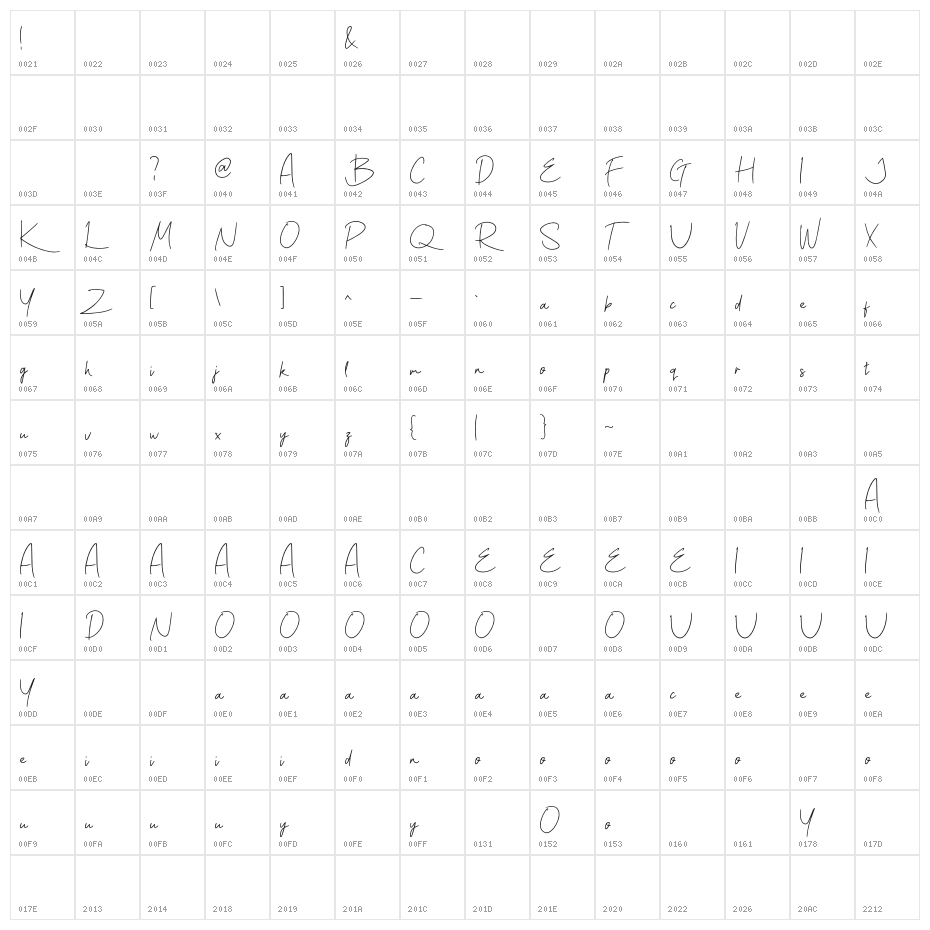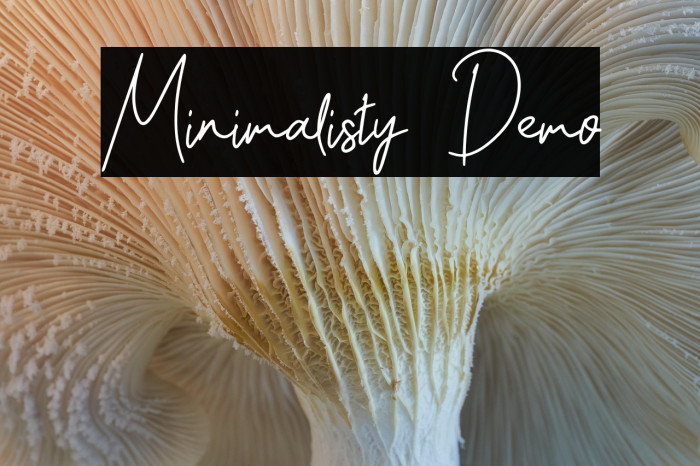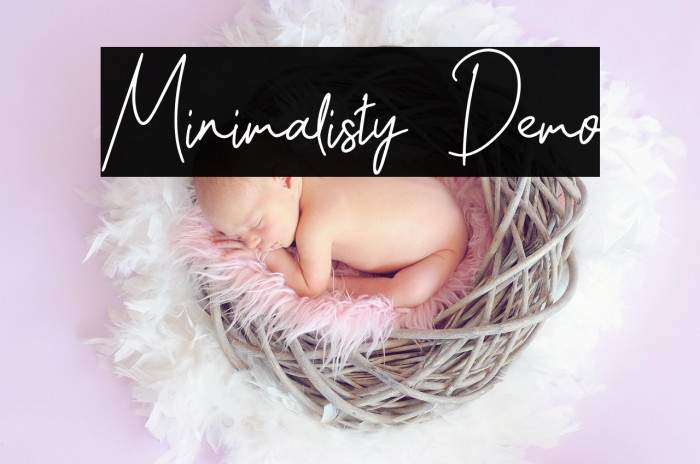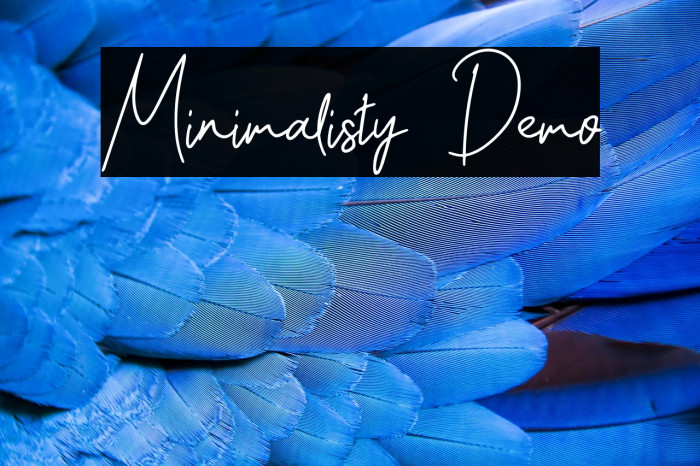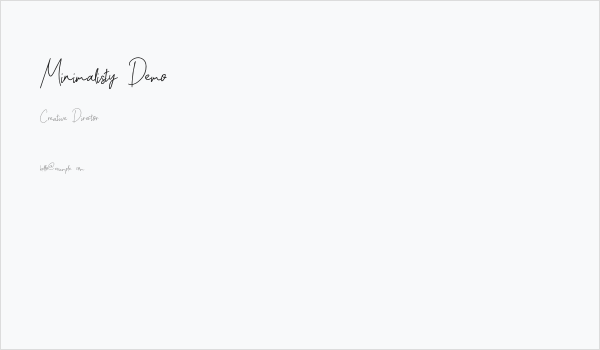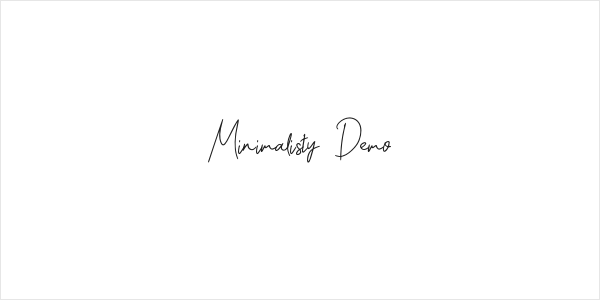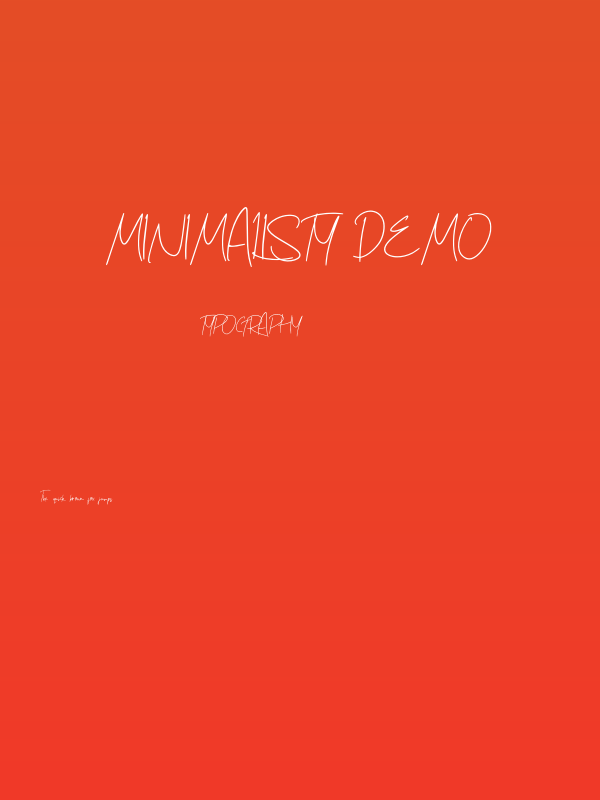
Minimalisty Demo Font
Minimalisty Demo Description
This font exhibits a modern, handwritten style with a casual and flowing appearance. The uppercase letters are tall and slightly condensed, featuring smooth curves and a consistent stroke width that gives them a sleek and elegant look. The lowercase letters maintain a similar style, with a slightly more relaxed and informal feel. The characters are well-spaced, allowing for easy readability while maintaining a stylish and artistic flair. The special characters, such as the ampersand and exclamation mark, are crafted with the same attention to detail, ensuring they blend seamlessly with the rest of the font. This font is perfect for projects that require a personal touch, such as invitations, greeting cards, or branding materials that aim to convey a sense of creativity and individuality.